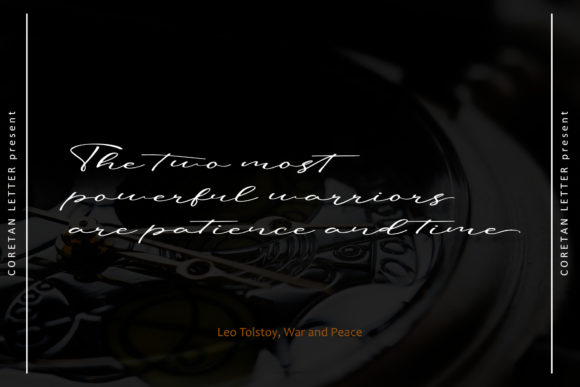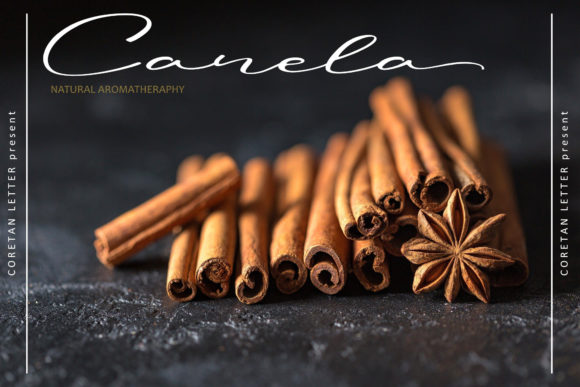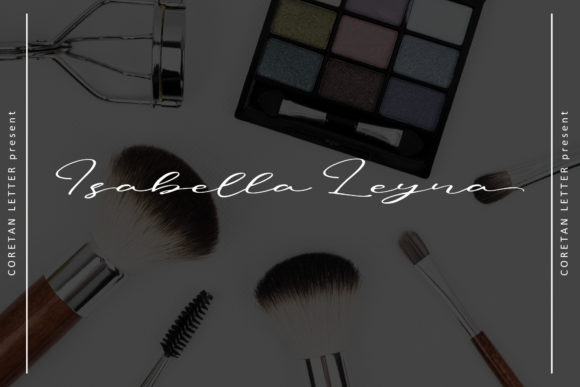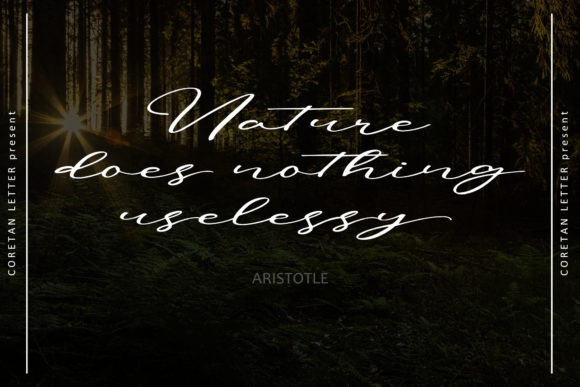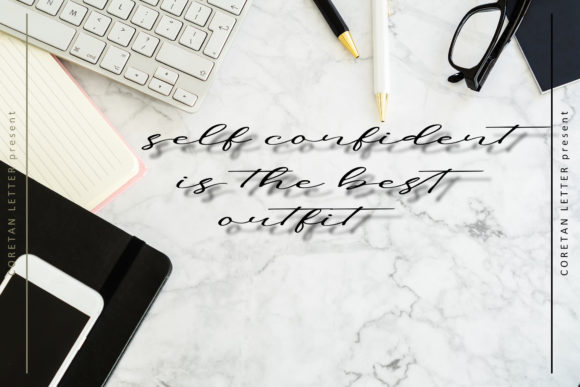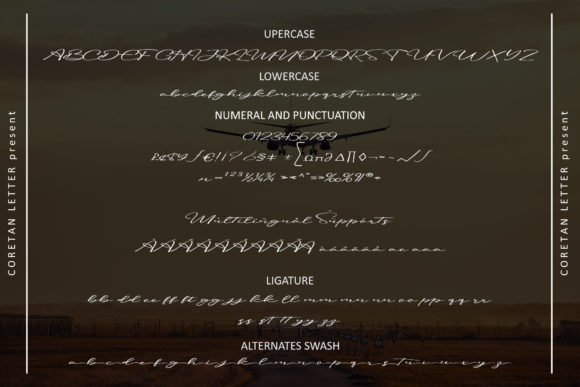
Summer Monday Font
About Summer Monday Font
Summer Monday is a fashionable and delicate script font that exudes elegance and style. With its clean, thin, and smooth vibe, this font is perfect for adding a touch of sophistication to any design project.
The refined letterforms of Summer Monday are carefully crafted, resulting in a font that feels modern and sleek. Its thin strokes and flowing curves create a sense of grace and elegance, making it an ideal choice for fashion-related designs, branding, invitations, stationery, and more.
One of the standout features of Summer Monday is its versatility. Whether you’re designing a logo, a headline, a wedding invitation, or a social media post, this font can effortlessly adapt to various contexts and elevate your design. Its clean and refined look allows it to complement other elements and let your content shine.
The font’s PUA encoding further enhances its usability by granting you easy access to all of its glyphs and swashes. This means you can effortlessly incorporate unique and decorative elements into your designs, adding even more flair and personality to your work.
Summer Monday’s delicate and fashionable aesthetic makes it a great choice for projects that require a touch of sophistication and refinement. Its clean and smooth appearance brings a sense of modernity, while its versatility ensures it can be applied to a wide range of design ideas.
Whether you’re working on branding, marketing materials, wedding stationery, or any other design project that calls for a fashionable and delicate script font, Summer Monday is ready to impress. Its clean and thin strokes, combined with its smooth curves, create a visually pleasing and stylish look that will captivate your audience.
In summary, Summer Monday is a fashionable and delicate script font that exudes elegance and sophistication. With its clean and thin strokes, smooth curves, and PUA encoding for easy access to additional glyphs and swashes, it offers versatility and style for a variety of design projects. Incorporate Summer Monday into your designs to add a touch of refinement and make a lasting impression.